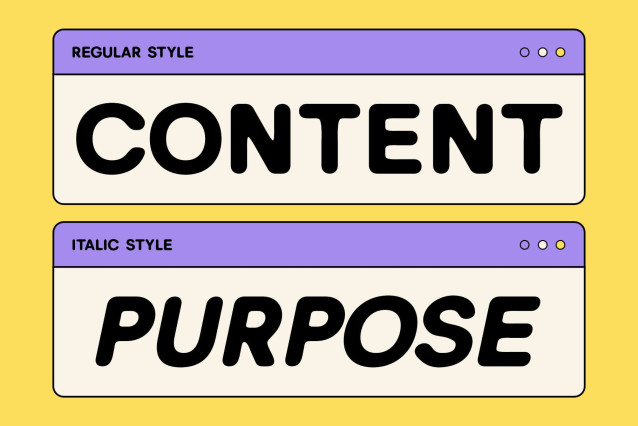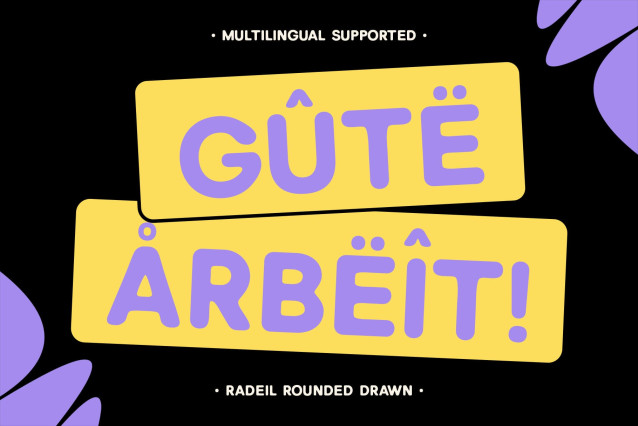
Radeil Rounded Drawn Font
Radeil Rounded Drawn Font is a modern sans serif font that merges bold geometric structure with soft rounded forms, delivering a contemporary design that feels both powerful and approachable. Its smooth curves and strong lines are elevated by a drawn effect, giving it a unique, hand-crafted personality.